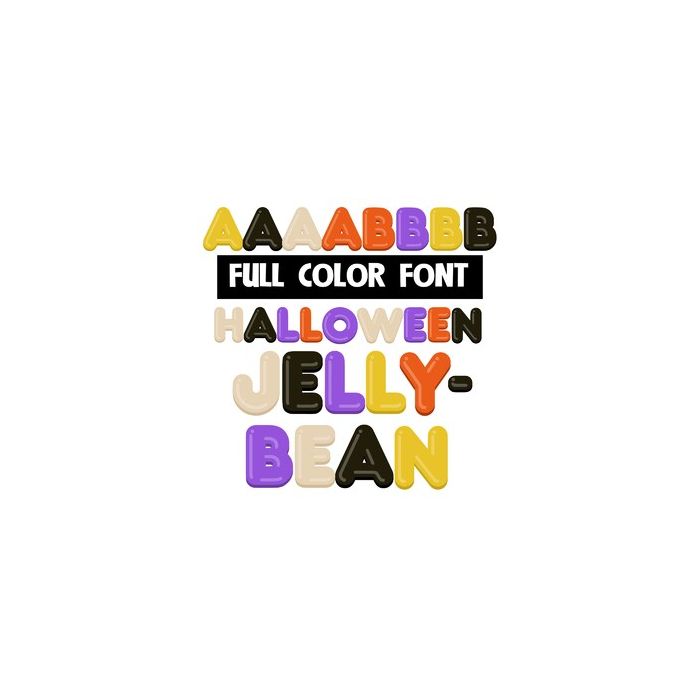
This full-color font features Halloween Jellybean colors in bold, shiny letters. There is an alt case in secondary colors you can access through your system or Silhouette's glyph map.